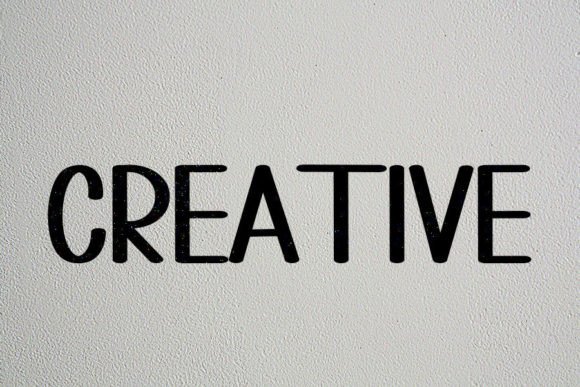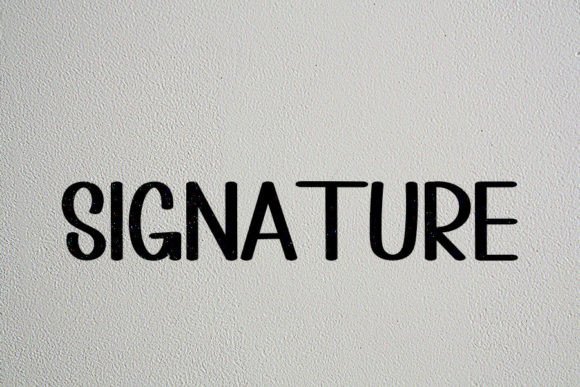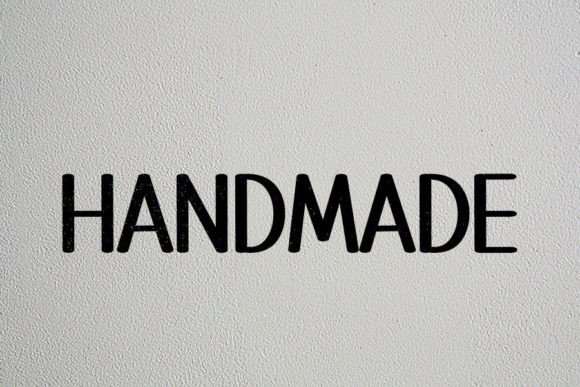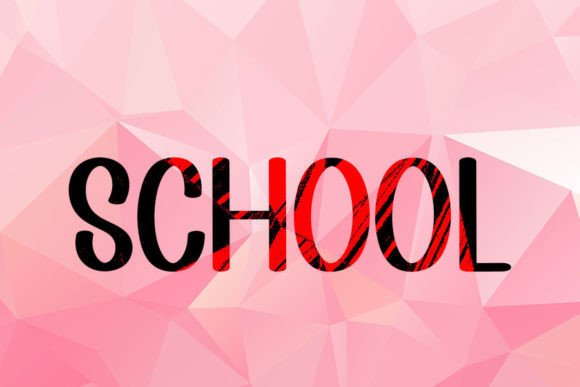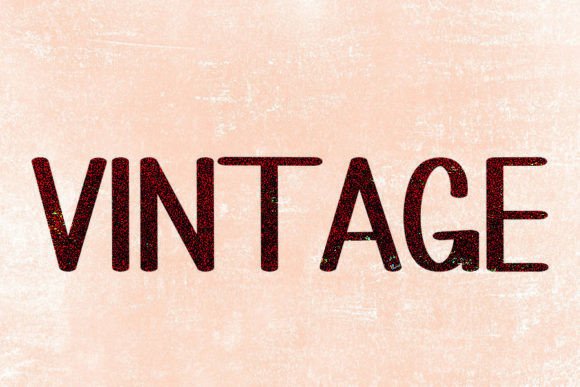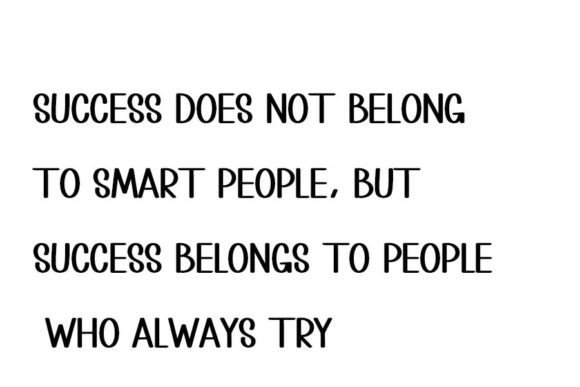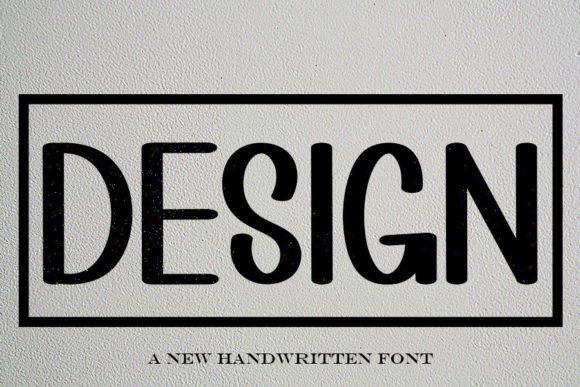
Introducing Design Font: The Elegant Handwritten Font for Your Design Needs
Are you tired of using the same old fonts for your design projects? Look no further! Design Font is a beautiful handwritten font that adds an elegant touch to any design. With its incredibly distinct and timeless style, you’ll fall in love with this font and want to use it for all your favorite projects.
The Characteristics of Design Font
Design Font is a neat and beautiful handwritten font that exudes elegance and sophistication. Its unique style is perfect for designers and crafters who want to add a personal touch to their work. The font’s classic and timeless design ensures that it will never go out of style, making it a great investment for any designer or business.
Why Choose Design Font?
There are many reasons why Design Font stands out from other fonts. Here are a few:
- Unique Style: Design Font has an incredibly distinct style that sets it apart from other fonts. Its elegant touch adds a level of sophistication to any design.
- Timeless Design: Unlike trendy fonts that quickly go out of style, Design Font’s classic design ensures that it will remain relevant for years to come.
- Versatility: Design Font is perfect for a wide range of design projects, from branding and advertising to packaging and digital media.
- Ease of Use: Design Font is easy to read and works well in both large and small sizes, making it perfect for a variety of applications.
How to Use Design Font in Your Designs
Design Font is easy to use and can be incorporated into a variety of design projects. Here are a few ideas to get you started:
- Branding and Logo Design: Use Design Font to create a unique and memorable logo for your business or brand.
- Social Media Graphics: Add a touch of elegance to your social media graphics with Design Font.
- Packaging Design: Use Design Font to create eye-catching packaging that stands out on store shelves.
- Digital Media: Design Font is perfect for e-books, blogs, and other digital media.
Tips for Getting the Most Out of Design Font
Here are a few tips for getting the most out of Design Font:
- Experiment with Different Sizes: Design Font works well in a variety of sizes, so don’t be afraid to experiment to find the perfect size for your design.
- Pair with Other Fonts: Design Font pairs well with other fonts, so try combining it with a bold font for added contrast.
- Use it Consistently: Use Design Font consistently across all your design projects to create a cohesive brand identity.
Design Font is a beautiful handwritten font that adds an elegant touch to any design. With its incredibly distinct and timeless style, it’s perfect for designers and crafters who want to create spectacular designs. Whether you’re working on a branding project, social media graphics, or packaging design, Design Font is the perfect choice. So why wait? Fall in love with Design Font and start creating stunning designs today!